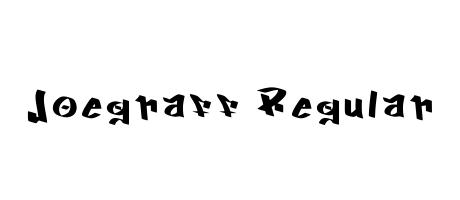
Joegraff
By Joel Miranda
Joegraff Regular is a bold, playful display typeface. Its chunky, uneven strokes and slightly jagged edges evoke a hand-painted or graffiti aesthetic. The letters are distinct yet slightly distorted, giving it a raw, energetic feel, perfect for eye-catching headlines or edgy branding. Its irregular nature makes it highly memorable.